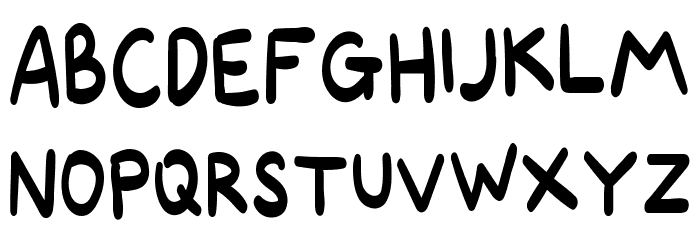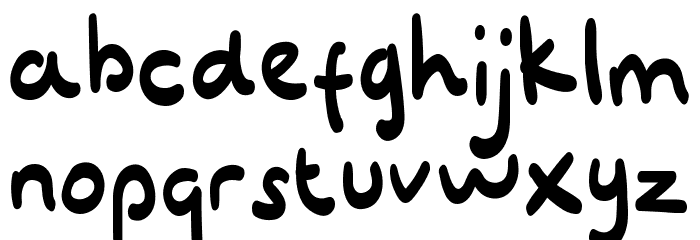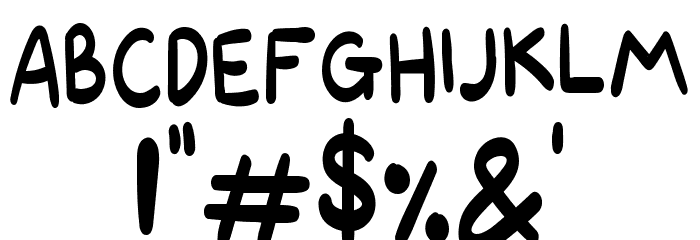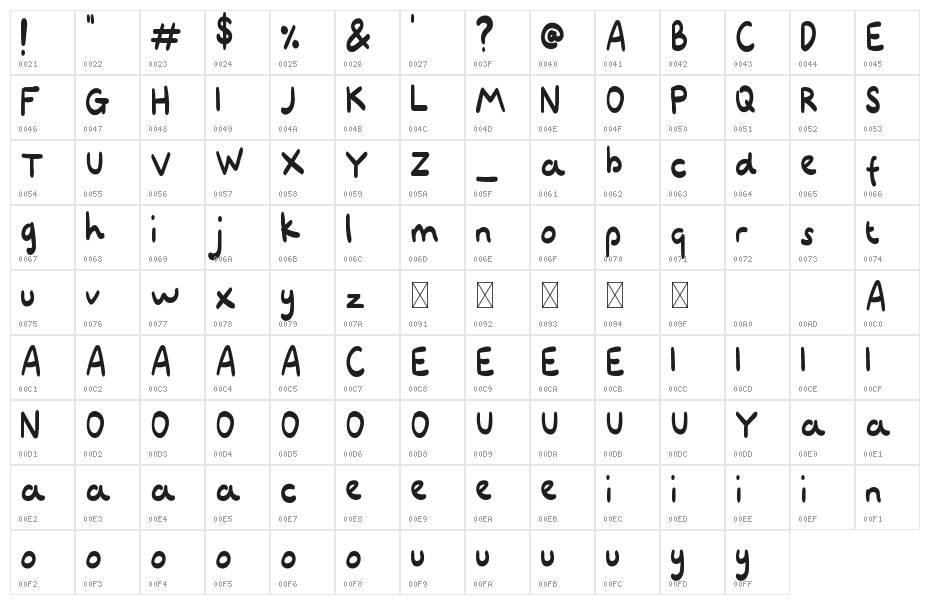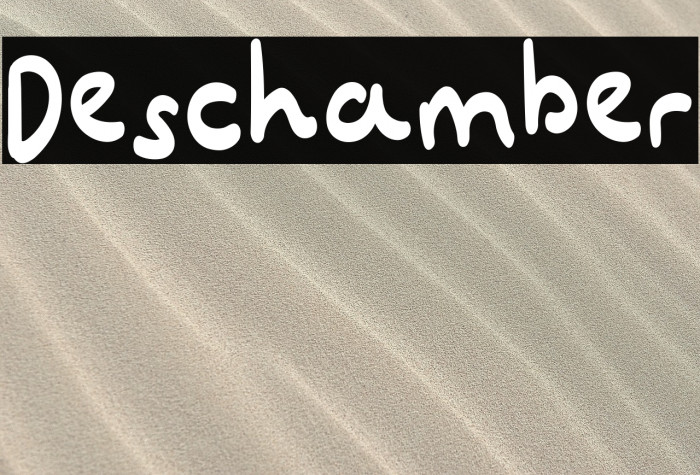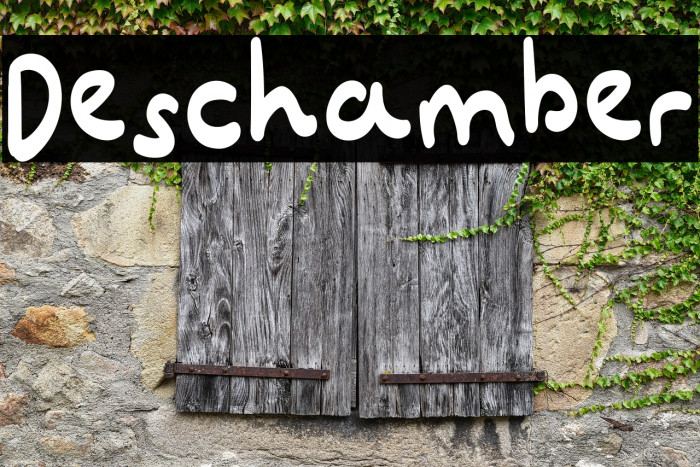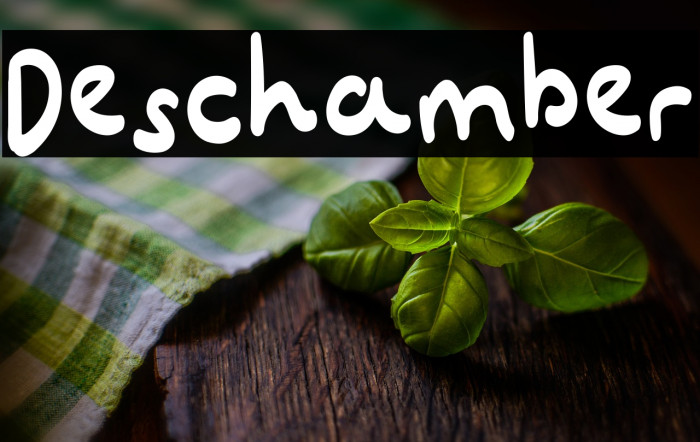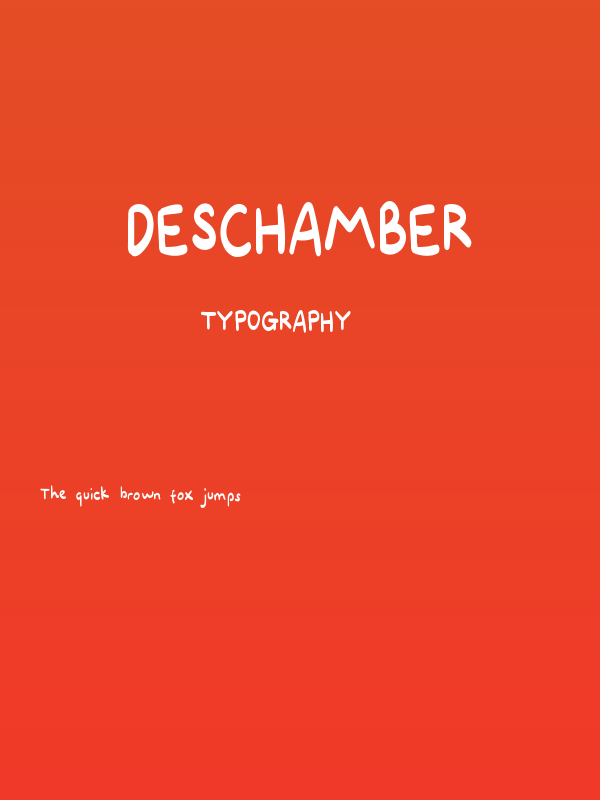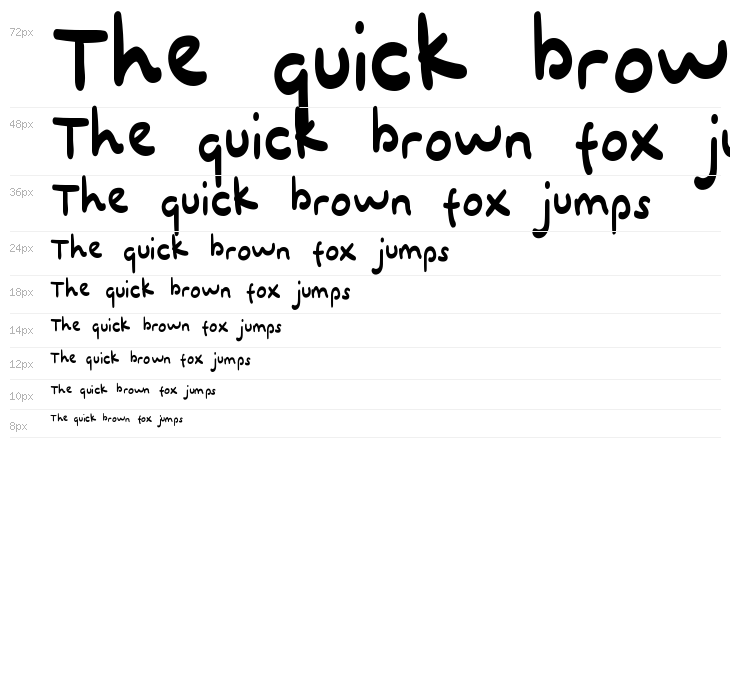
Deschamber Font
This playful and informal font features a handwritten style with bold, rounded characters. The letters have a consistent thickness, giving them a uniform appearance, while maintaining a casual and approachable feel. The uppercase and lowercase letters are distinct, with the lowercase having a slightly more whimsical touch. The numbers and special characters follow the same style, ensuring cohesion across all elements. This font is ideal for projects that require a friendly and inviting tone, such as children's books, casual invitations, or playful branding materials.
A bold, handwritten font with rounded, playful characters.
- Font: Deschamber
- Proposed Projects: Ideal for children's books, casual invitations, playful branding, and informal communication.
- Category: Handwritten
- Overall Style: Playful
- Use Case: Headlines, Logos, Informal Text